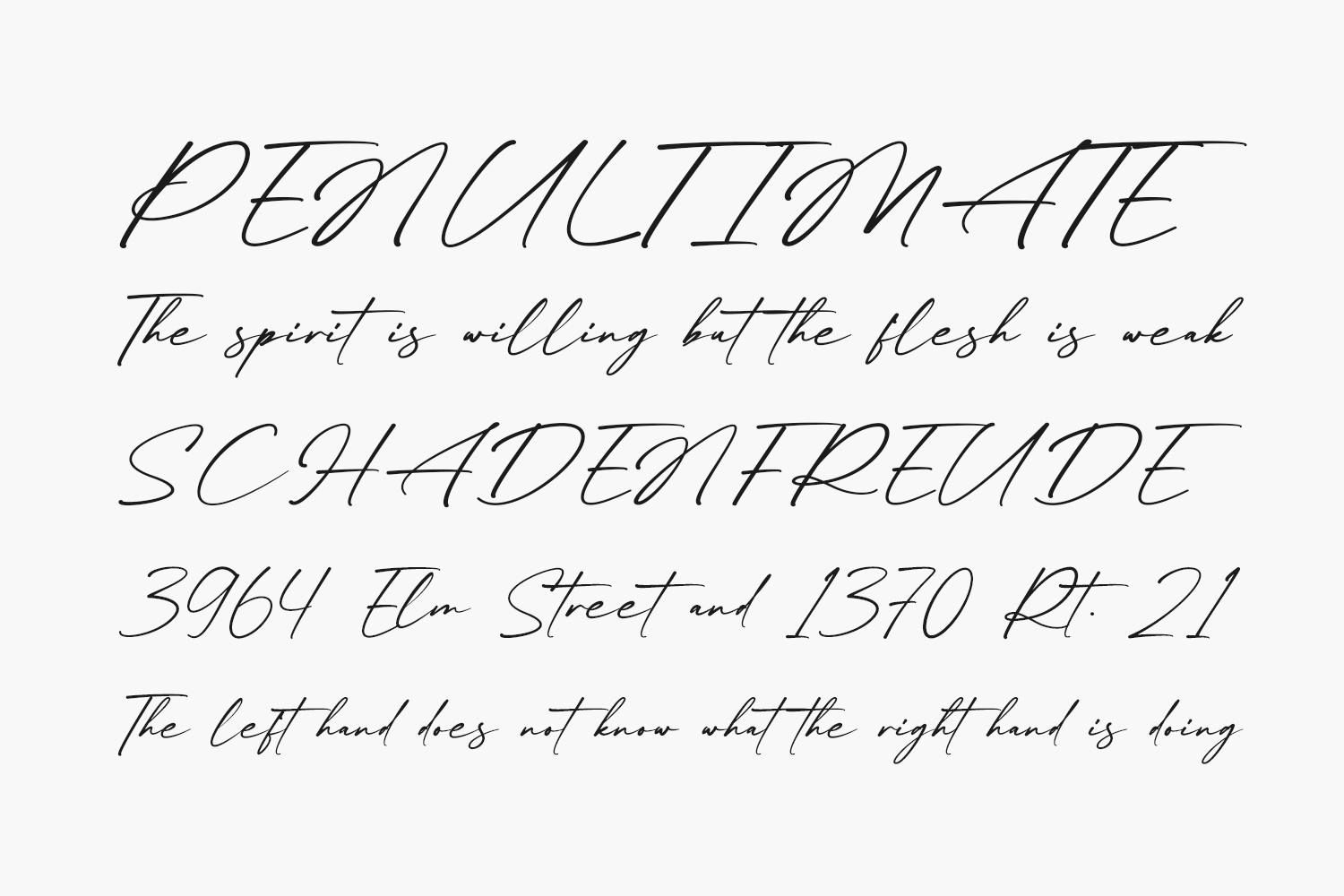
Bethany Avanue is a modern decorative typeface designed by RantauType to bring elegance and versatility to your creative projects. With its high-contrast letterforms, sleek curves, and playful swashes, this free handwritten font for branding is perfect for crafting bold logos, eye-catching packaging, stylish editorial headers, and engaging social media graphics. Available in OTF format with support for Latin characters, Bethany Avanue is a free decorative font for commercial use, ideal for designers seeking a modern script font for wedding invitations, posters, or Instagram Stories. Download now and elevate your designs with this stunning typeface!
Why Choose Bethany Avanue?
- Unique Style: Combines modern minimalism with expressive swashes for a luxurious, versatile look.
- Optimized for Headlines: Designed for large sizes, making it a perfect font for posters and billboards.
Where to Use Bethany Avanue?
Bethany Avanue shines in a variety of design projects:
- Logos & Branding: Adds sophistication to a luxury font for fashion branding, beauty, or boutique identities.
- Social Media Quotes: Creates bold, eye-catching text overlays for an elegant font for Instagram Stories, Pinterest pins, or TikTok videos.
- Editorial Headers: Stands out in magazine layouts, blog headers, or advertising campaigns with this decorative font for editorial design.
- Packaging Design: Perfect for labels on cosmetics, food products, or handmade crafts using a stylish font for product packaging.
- Wedding Invitations: Brings handwritten charm to a modern font for wedding invitations, RSVP cards, and event signage.
Design Tips with Bethany Avanue
To maximize the impact of Bethany Avanue, pair it with a clean sans-serif like Manetains for a balanced, professional look. Use this bold font for large text in posters or combine with subtle textures for a vintage aesthetic. For social media, apply Bethany Avanue to short, bold quotes with vibrant backgrounds to grab attention. Try our interactive font preview tool below to test this free font for graphic design with your text before downloading!